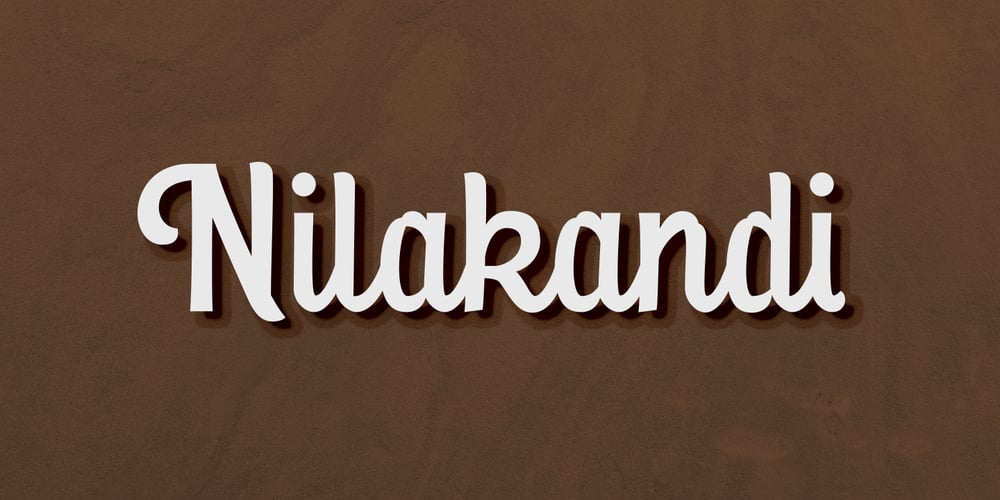
Nilakandi Font Family was designed by Arwan Sutanto and published by Locomotype. Nilakandi contains 1 styles and family package options. Nilakandi is an elegant display script font. The sturdy and thick construction feels so strong which is the result of a combination of classic typeface and modern calligraphy.The OpenType features are very rich with many alternative fonts on stylistic sets so you will easily mix and match typography in each of your designs.With nearly 600 glyphs, Nilakandi supports many languages. Don’t waste time, it’s time you put Nilakandi in your font collection folder.